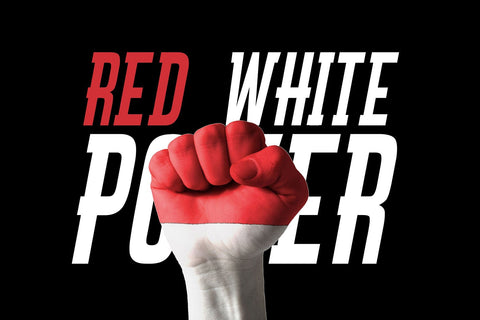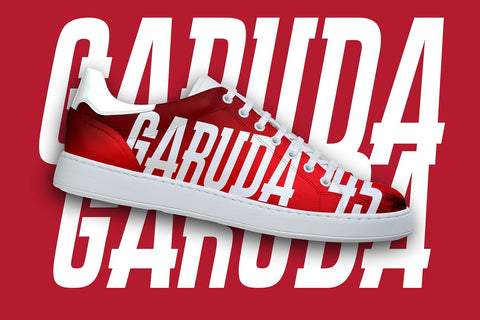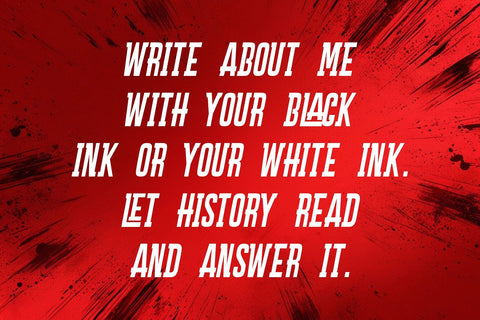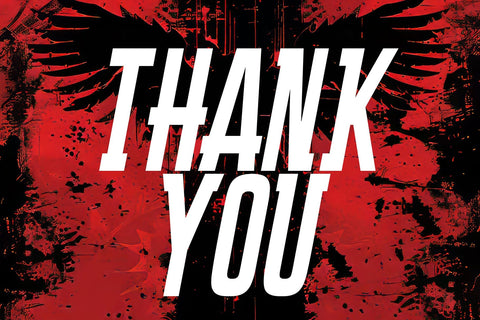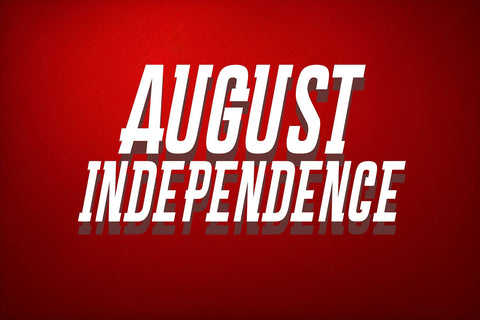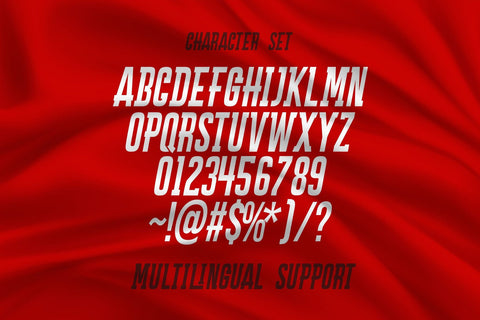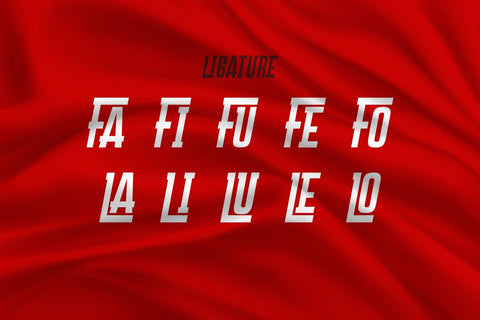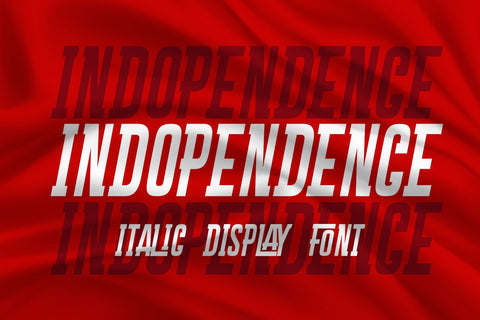
Indopendence - Italic Strong Display Font
Indopendence is an italic display font that exudes elegance and dynamism, featuring carefully crafted ligatures within each character. This font is perfect for adding a sophisticated and fluid touch to your designs, whether you're working on branding, headlines, or any project that requires a stylish and cohesive visual appeal. The italic slant combined with the unique ligatures creates a sense of movement and connection, making Indopendence a versatile choice for both modern and classic design themes.